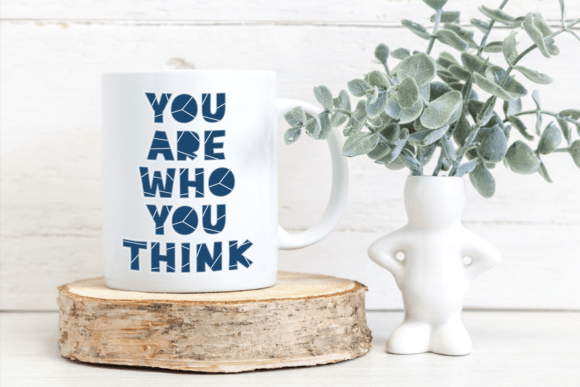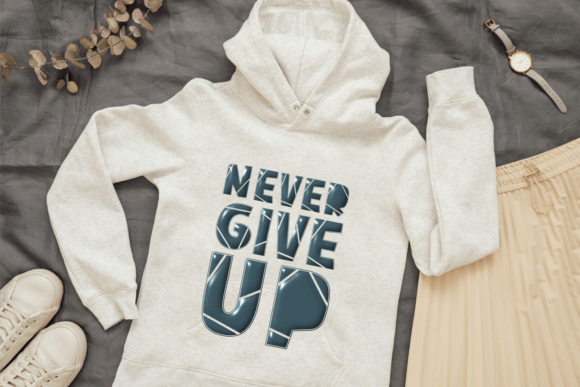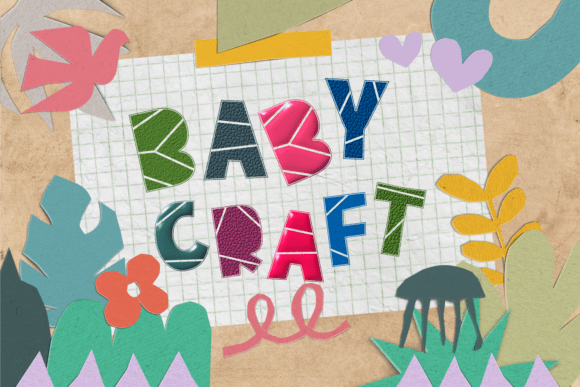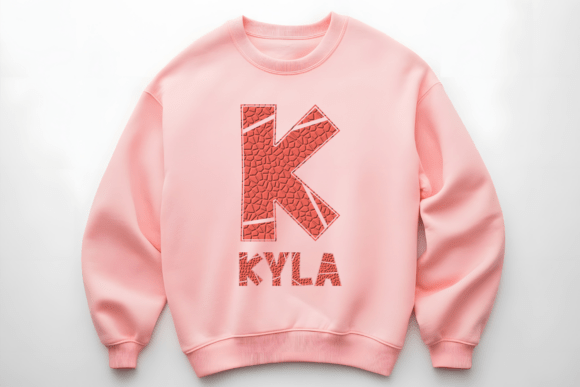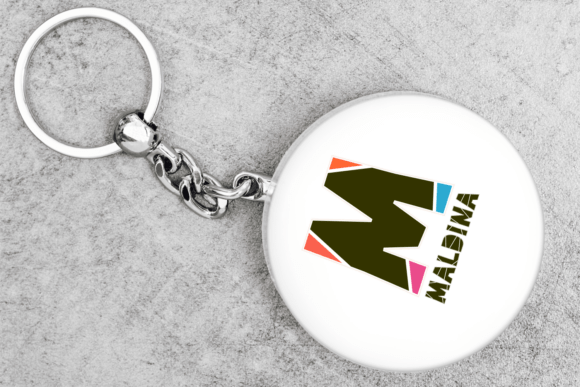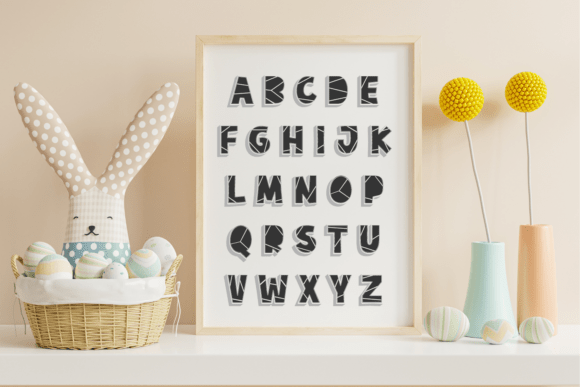
Introduction to Paper Slice Font
Introducing the Paper Slice font – a delightful combination of art and typography.
Taking inspiration from layered paper cuts, each letter in this font resembles multiple slices of paper stacked side by side, giving the typeface a captivating 3D appeal Defined by thin outlines that separate each slice, these detailed elements contribute to the clean look and feel of the font, yet do not interfere with legibility.
Key Features of Paper Slice Font
Why Choose Paper Slice Font?
Paper Slice Font offers exceptional quality and versatility, making it a valuable addition to your design toolkit. Whether you’re creating for personal projects or commercial use, Paper Slice Font delivers professional results.